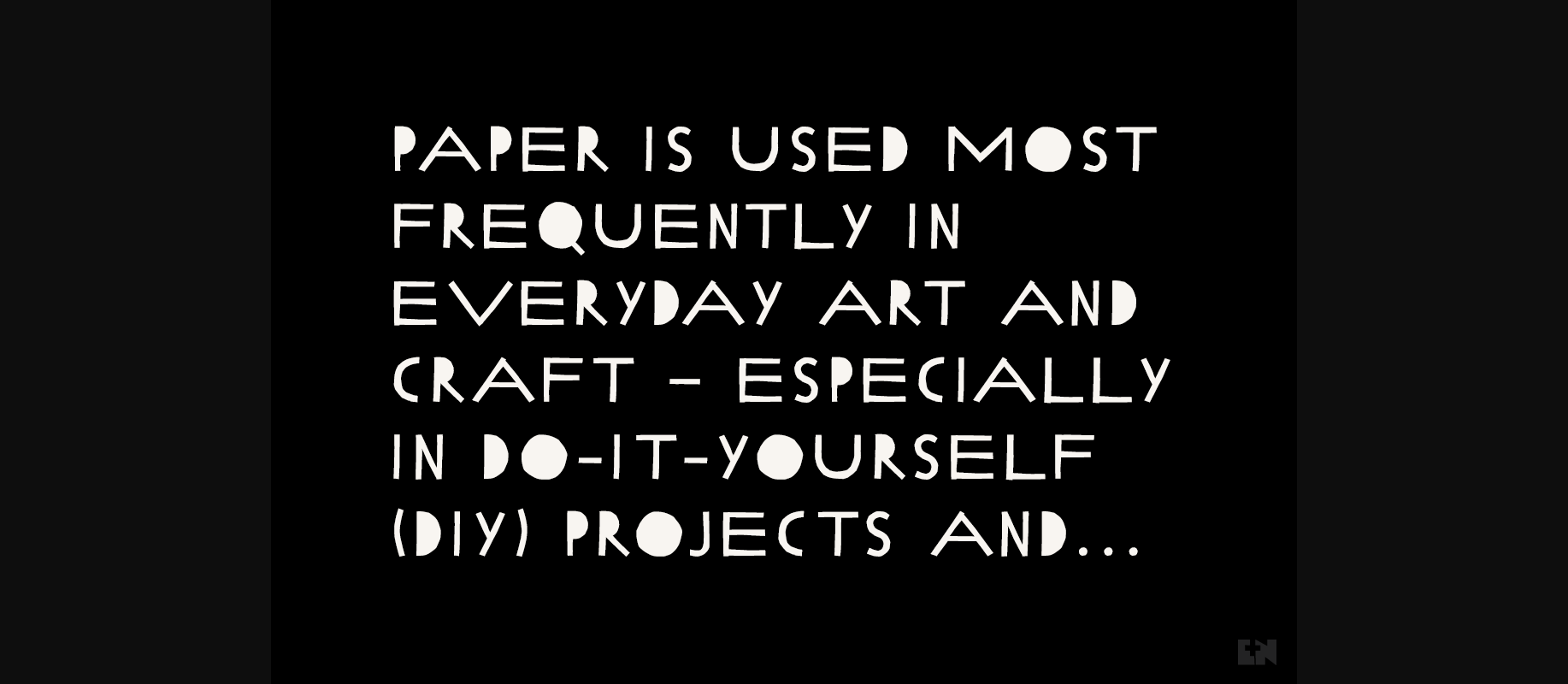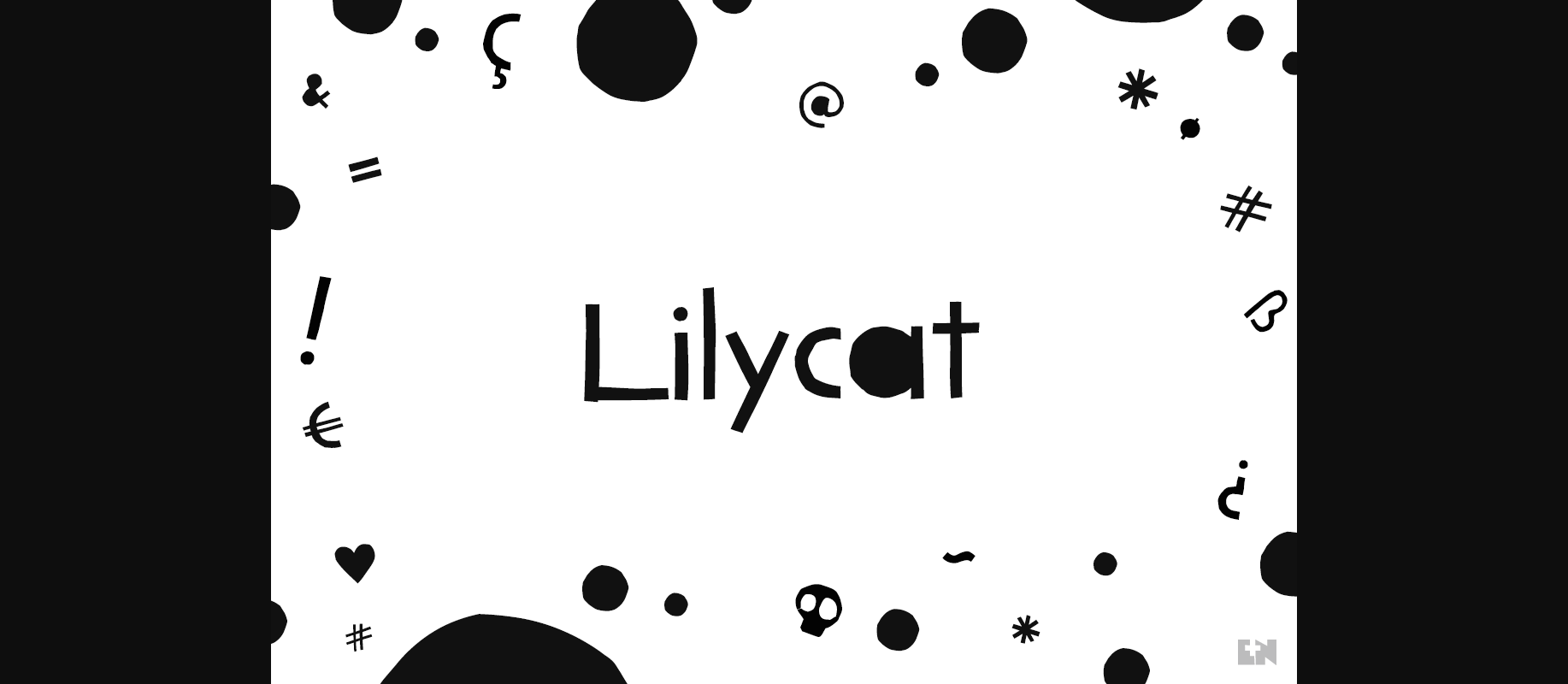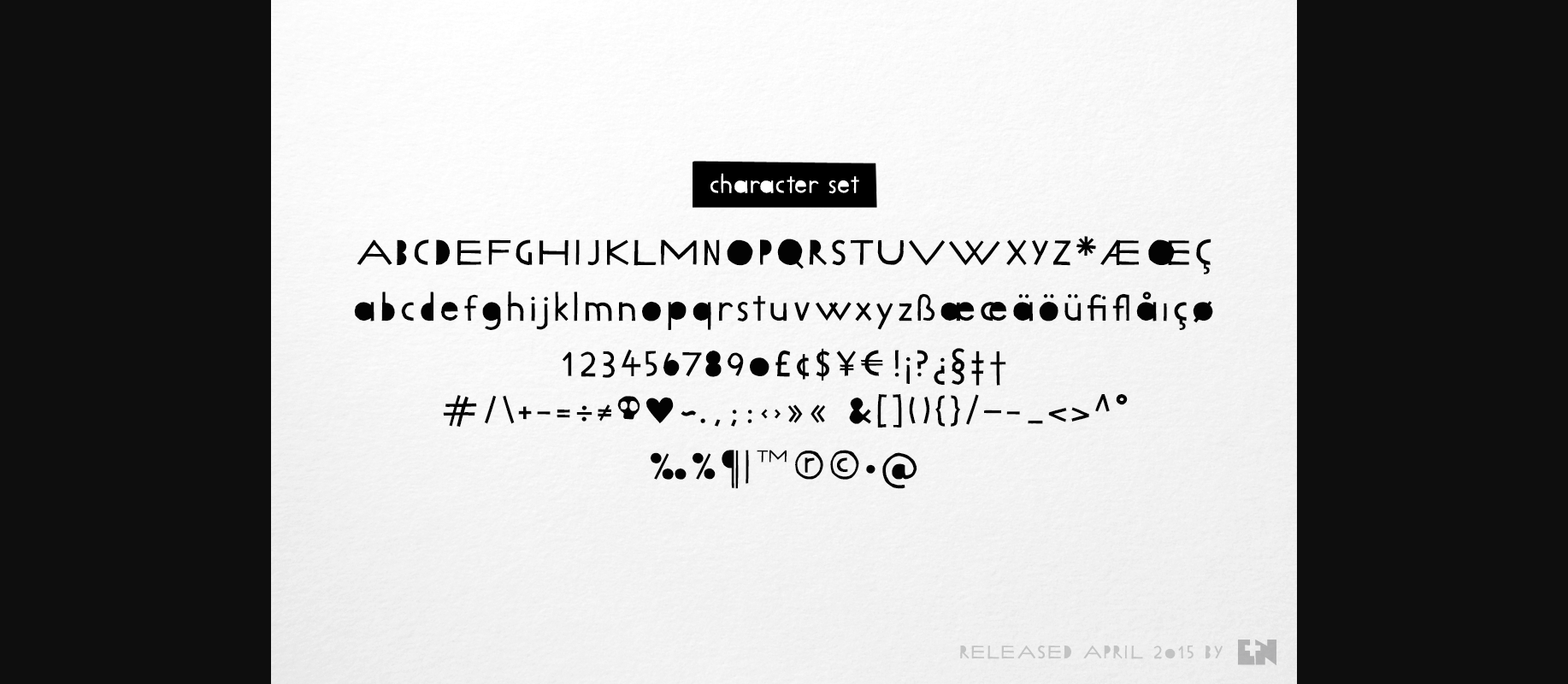
About Lilycat Font
Lilycat is based on paper cut-outs of circles and rectangles. The shapes share characteristics of early modern fonts such as Futura. Uneven edges give the typeface a hand-made, playful, authentic feel. The font is suitable for use in short paragraphs, headings and captions, logotypes or whatever use you see fit.